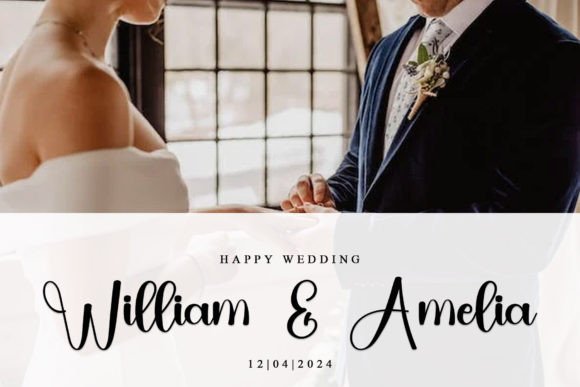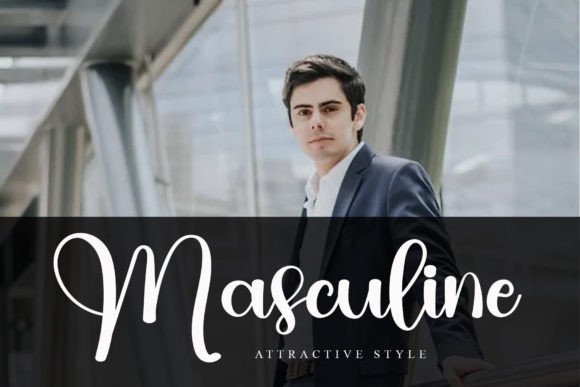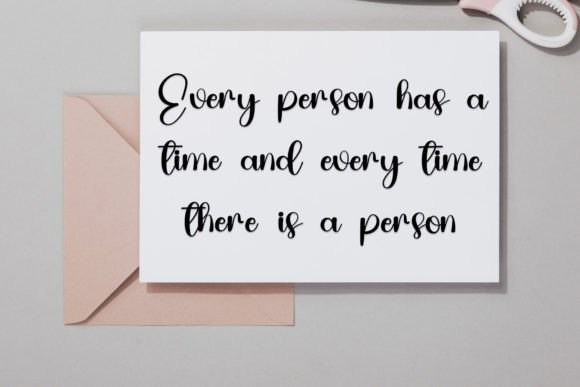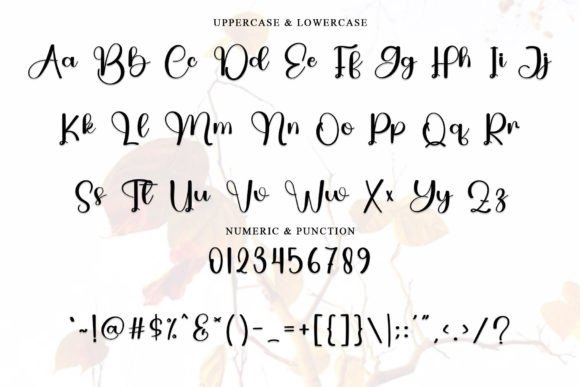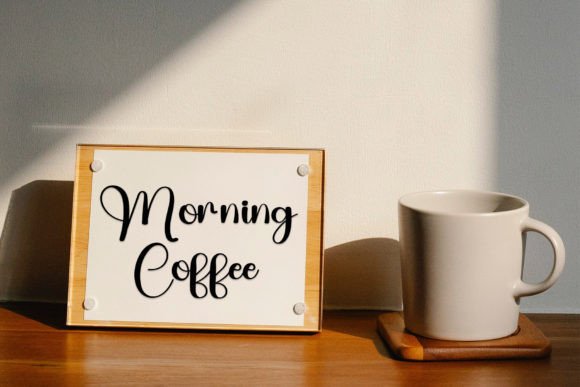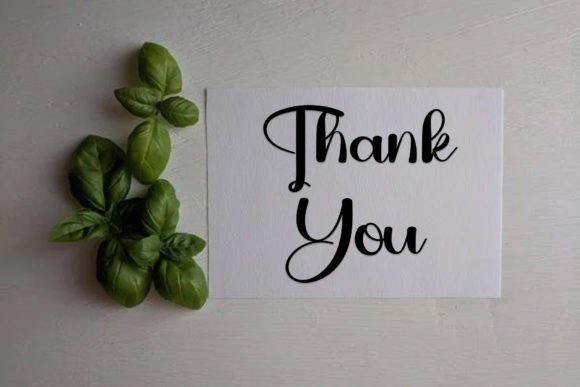
Introducing Autumn September Font: The Perfect Addition to Your Design Arsenal
As a designer or crafter, you’re always on the lookout for the perfect font to elevate your projects and make them stand out. If you’re looking for a modern, handwritten font with a casual and friendly feel, look no further than Autumn September Font. This beautiful font is designed to add a warm, creative touch to any project, and its smooth, flowing letters make your text look personal and inviting.
The Characteristics of Autumn September Font
Autumn September Font is a modern handwritten font that boasts a range of characteristics that make it perfect for a variety of design projects. Some of its key features include:
- Casual and Friendly Feel: Autumn September Font has a relaxed, approachable vibe that’s perfect for designs that need to feel warm and inviting.
- Smooth, Flowing Letters: The font’s smooth, flowing letters are designed to make your text look personal and engaging.
- Modern Handwritten Style: Autumn September Font is a modern take on traditional handwritten fonts, making it perfect for designers who want to add a touch of personality to their work.
Why Choose Autumn September Font?
So why should you choose Autumn September Font for your next design project? Here are just a few reasons:
- Versatility: Autumn September Font is versatile enough to be used in a wide range of design projects, from branding and packaging to social media graphics and more.
- Easy to Read: The font’s smooth, flowing letters make it easy to read, even at smaller sizes.
- Unique and Creative: Autumn September Font is a unique and creative font that will help your designs stand out from the crowd.
Using Autumn September Font in Your Design Projects
Autumn September Font is perfect for a wide range of design projects, including:
- Branding and Packaging: Use Autumn September Font to add a personal touch to your brand’s packaging and marketing materials.
- Social Media Graphics: Add a creative touch to your social media graphics with Autumn September Font.
- Blog and Website Design: Use Autumn September Font to add a warm, inviting feel to your blog or website.
Tips for Getting the Most Out of Autumn September Font
Here are a few tips for getting the most out of Autumn September Font:
- Experiment with Different Sizes: Autumn September Font looks great at a wide range of sizes, so don’t be afraid to experiment and find the perfect size for your project.
- Pair with Other Fonts: Autumn September Font pairs well with a wide range of other fonts, so try pairing it with some of your other favorite fonts to create a unique look.
- Use it to Add a Personal Touch: Autumn September Font is perfect for adding a personal touch to your designs, so don’t be afraid to use it to add a bit of personality to your work.
Autumn September Font is a beautiful, modern handwritten font that’s perfect for designers and crafters who want to add a warm, creative touch to their projects. With its smooth, flowing letters and casual, friendly feel, it’s the perfect addition to any design arsenal. Whether you’re working on a branding project, social media graphics, or a blog or website design, Autumn September Font is sure to become one of your go-to fonts.